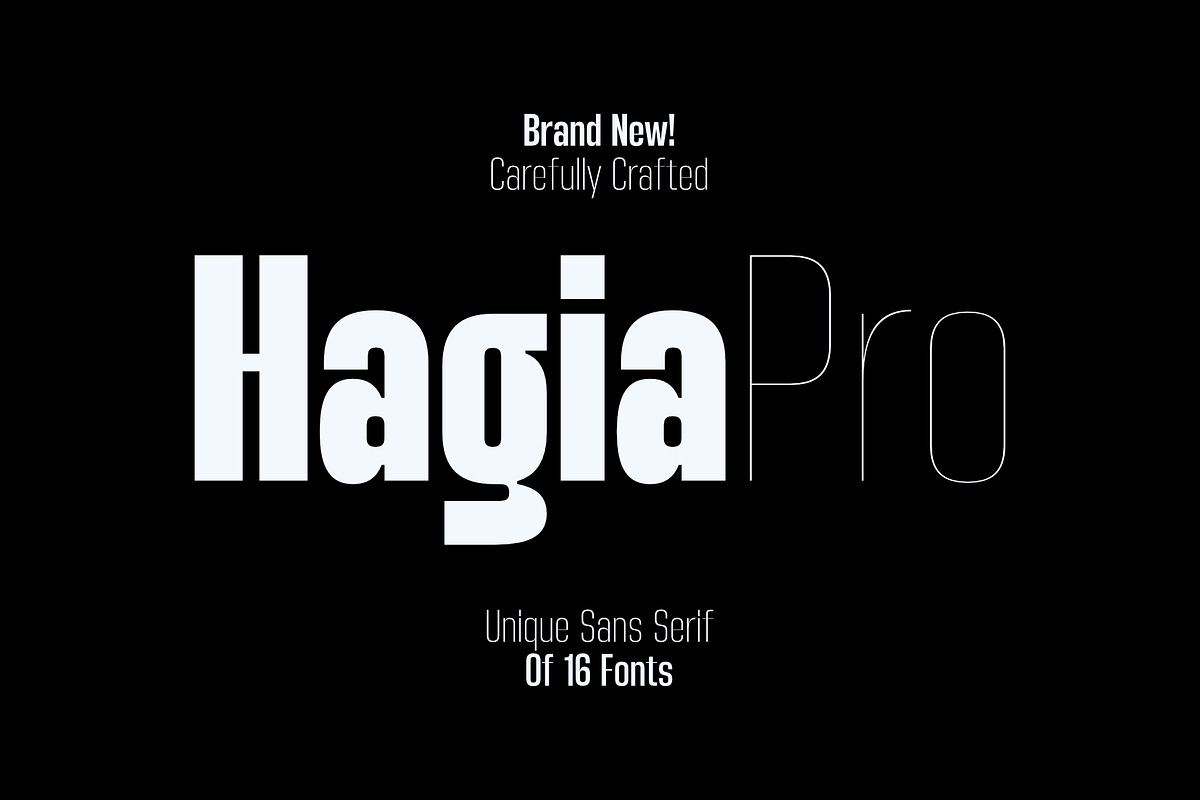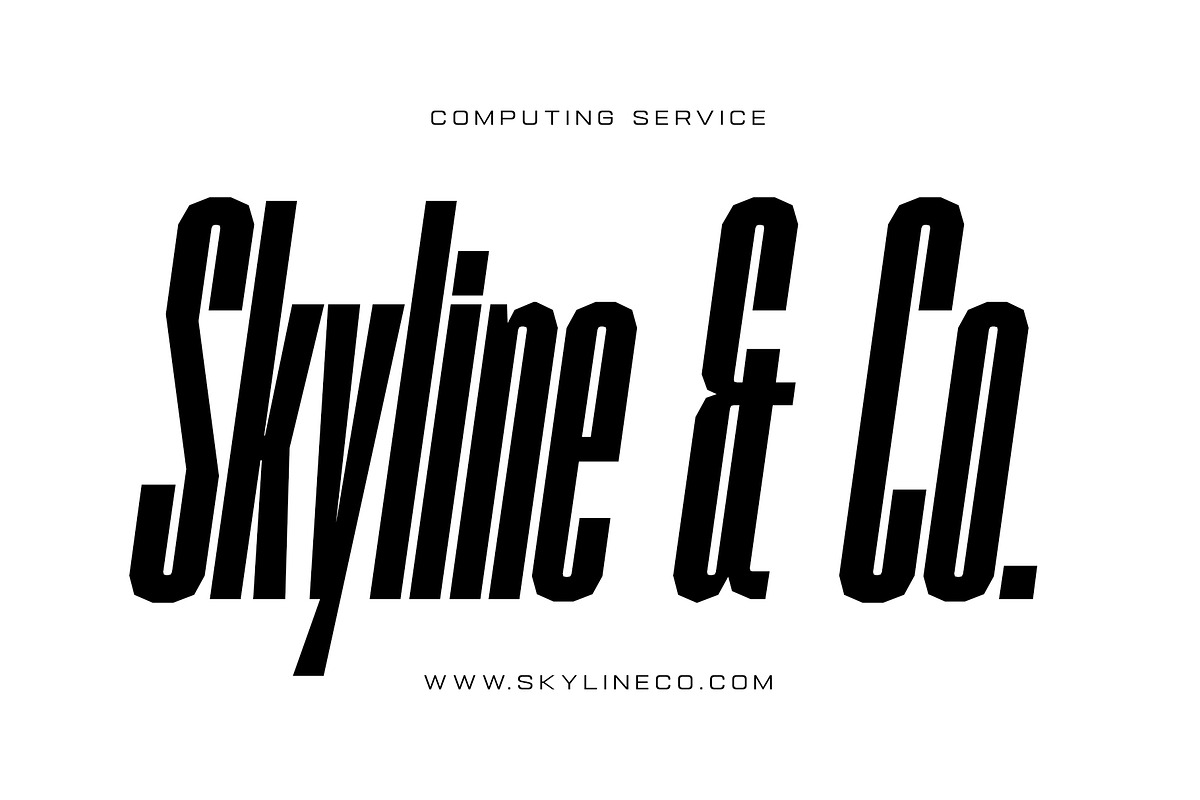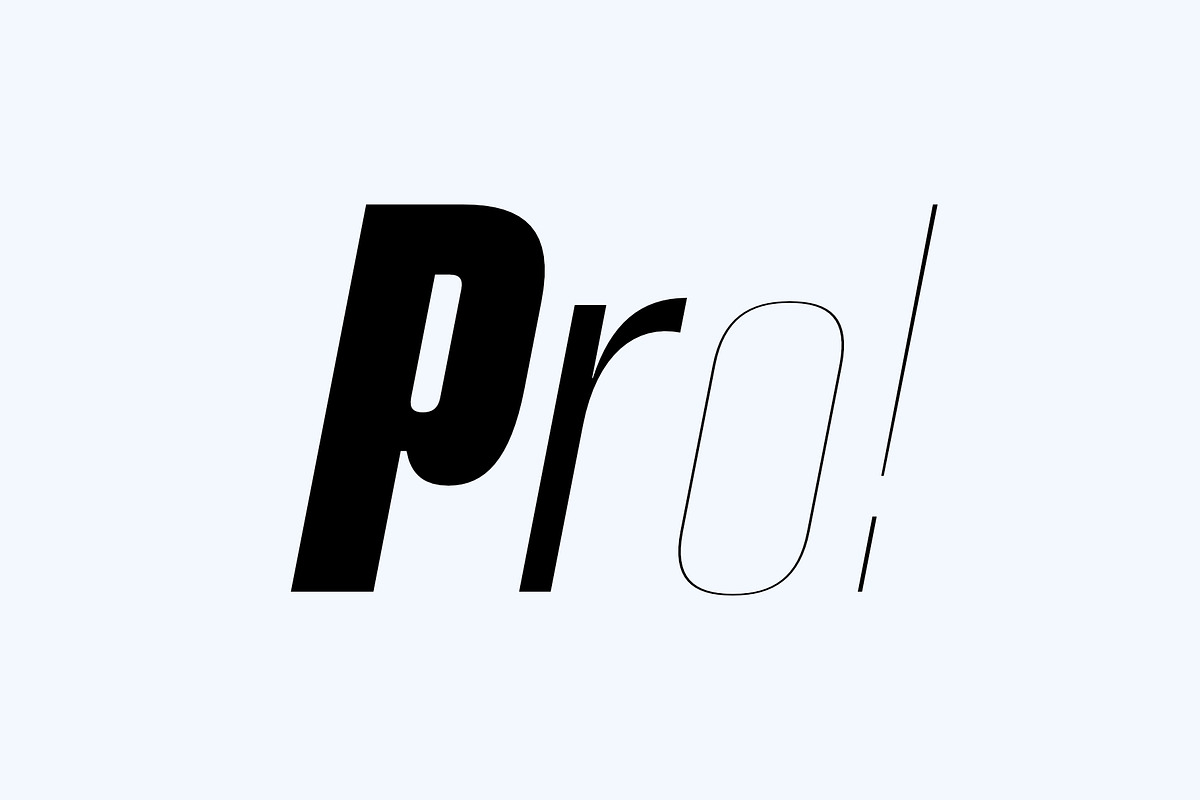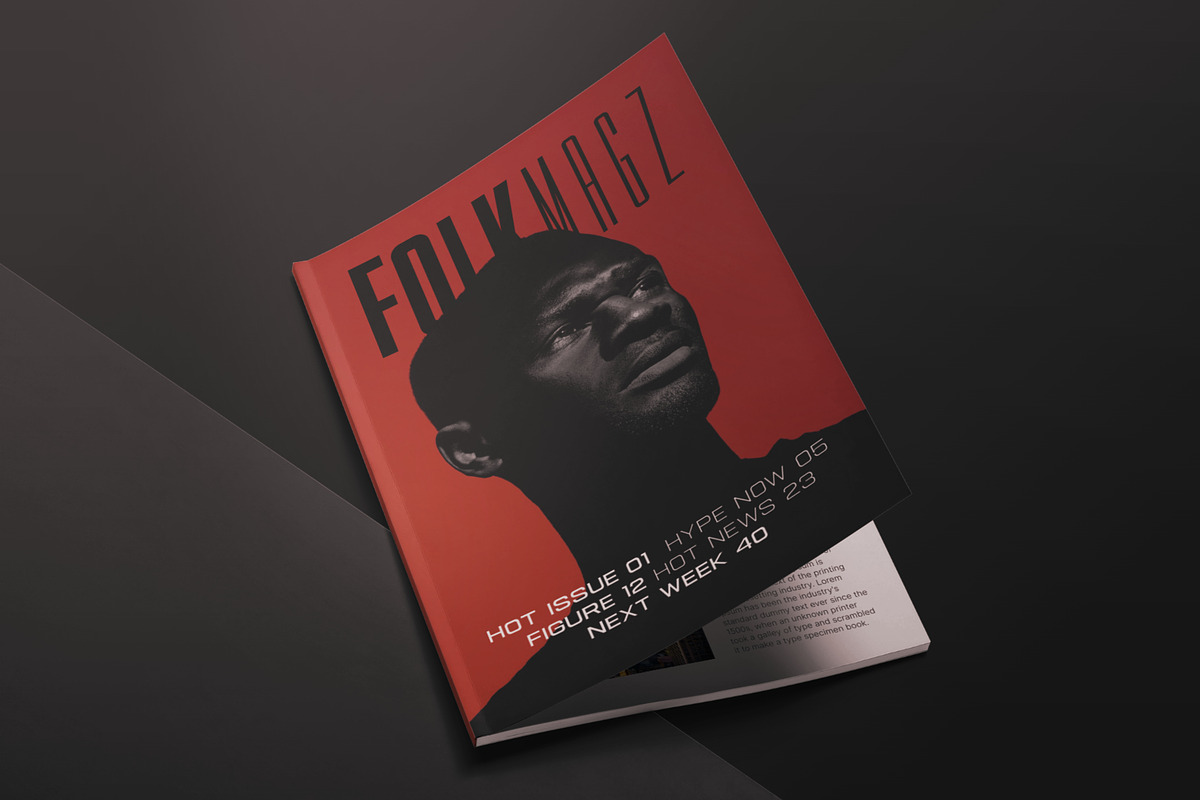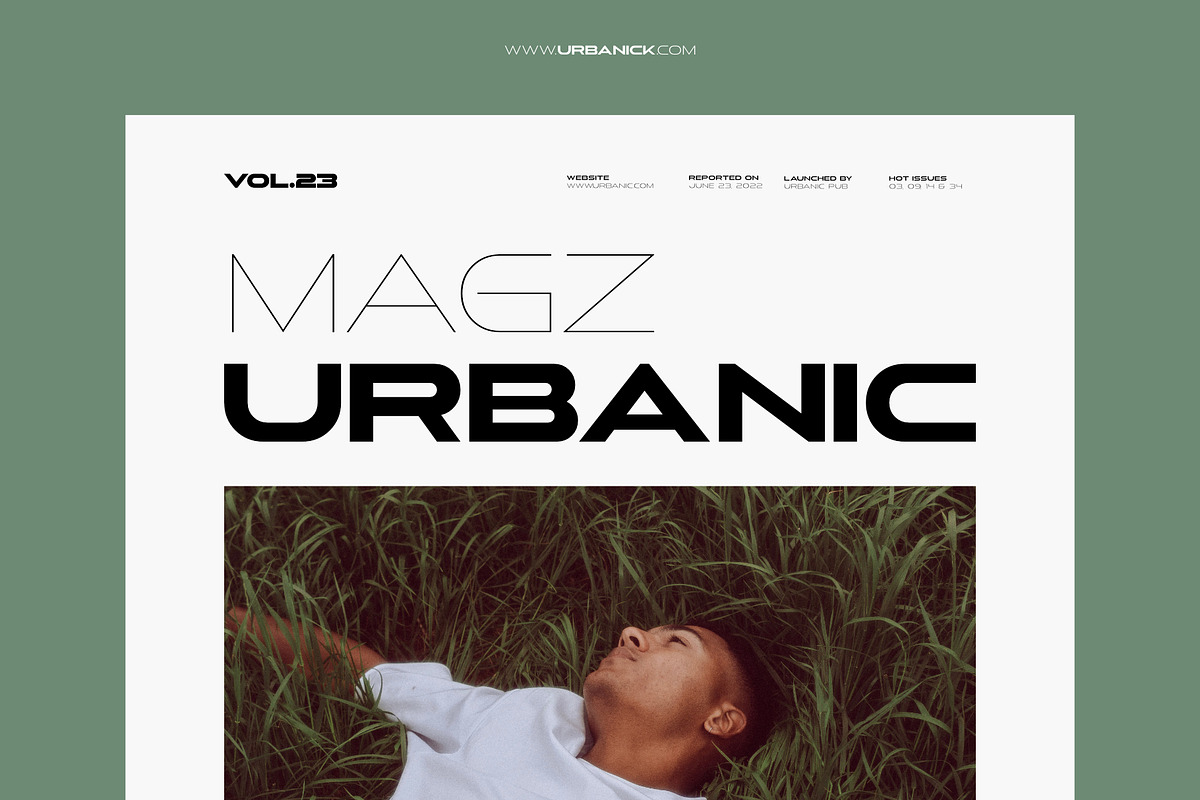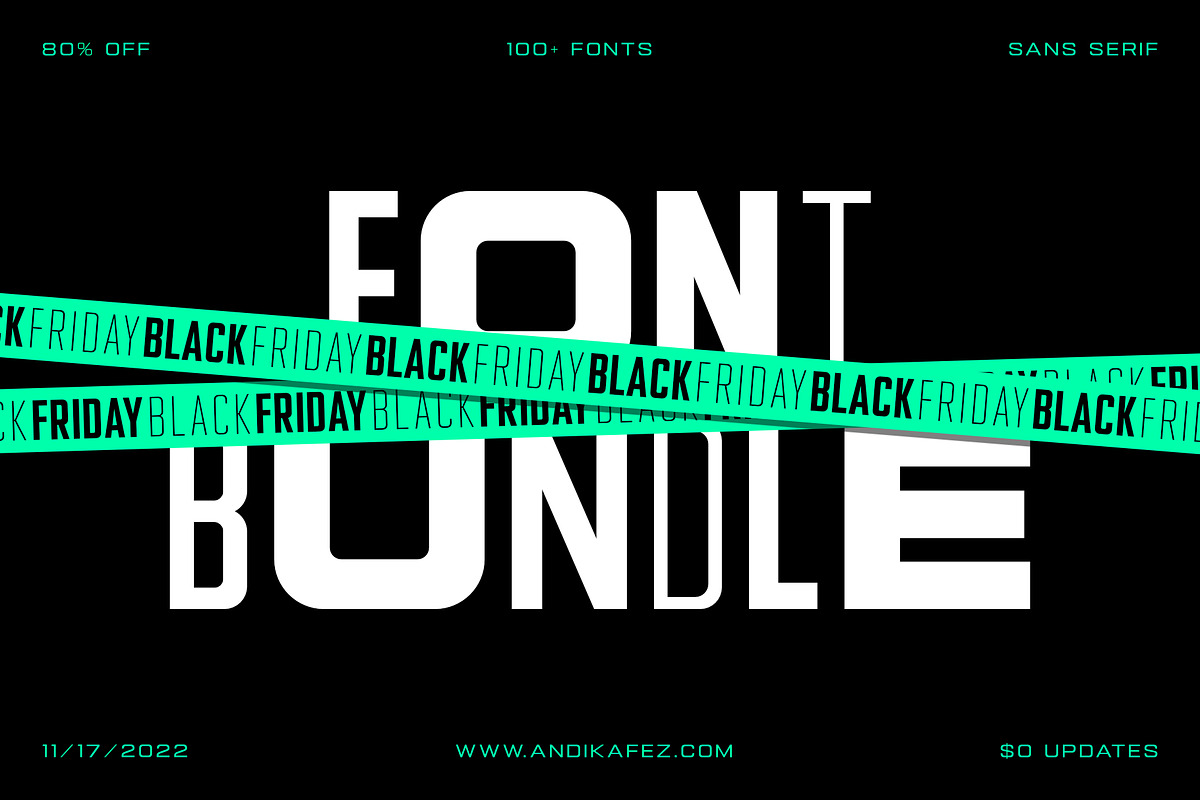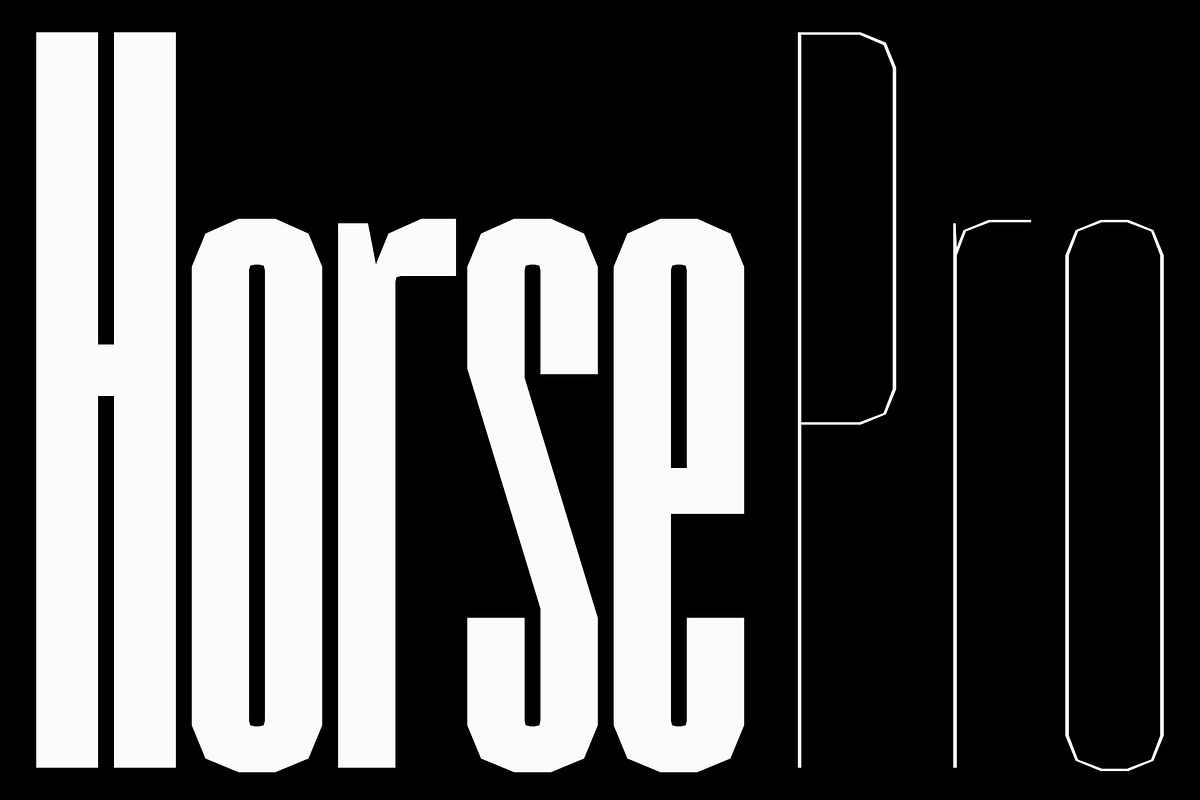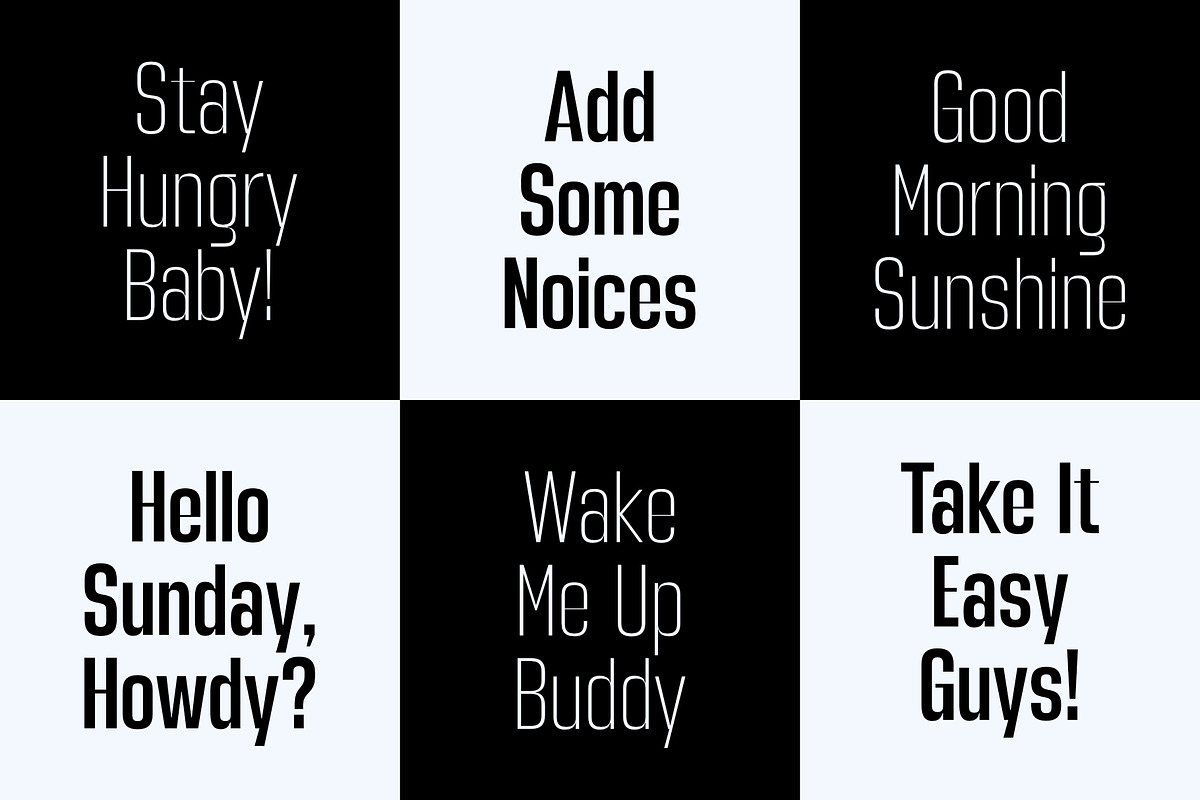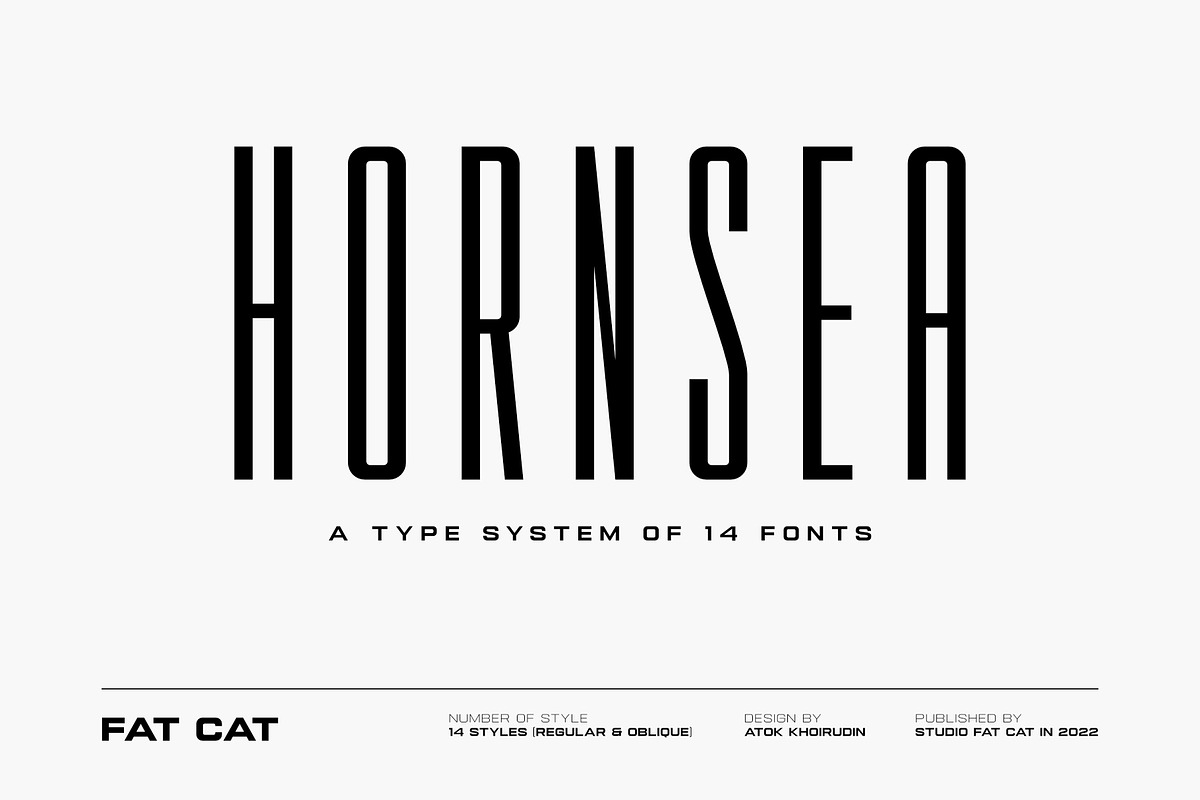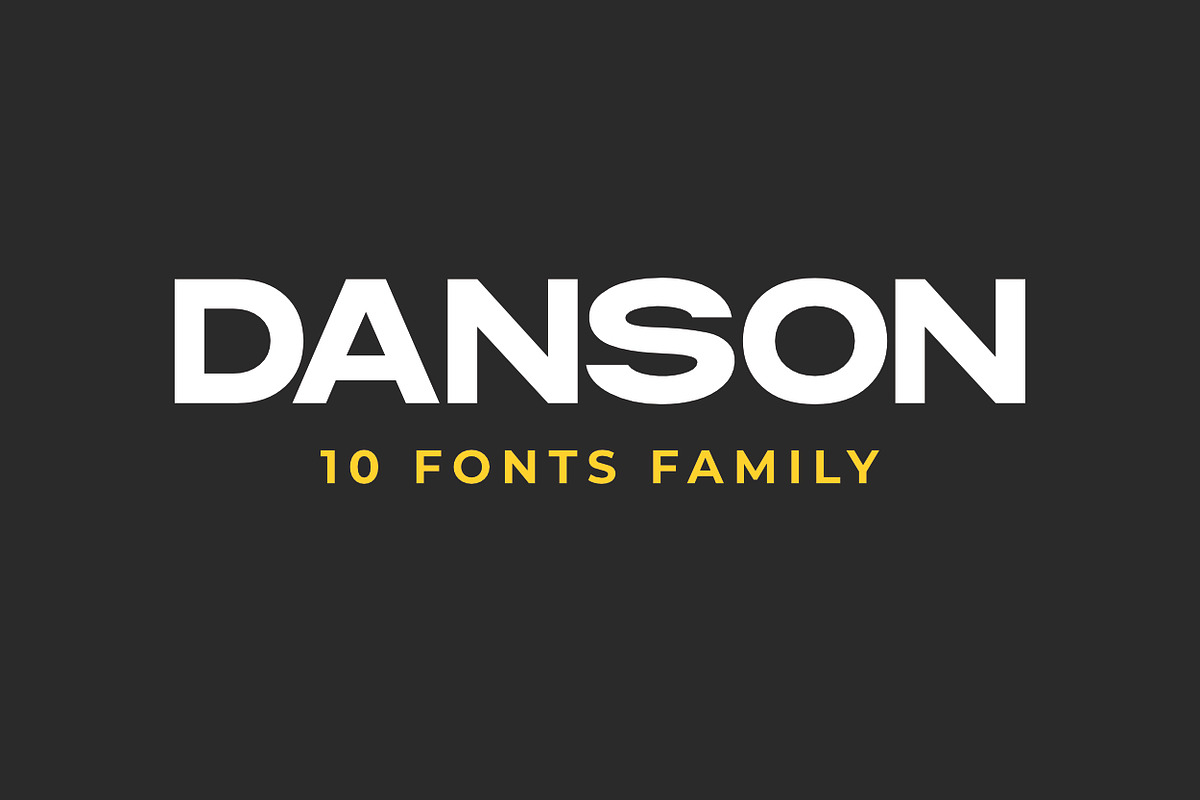
Black Friday Sans Serif Font Bundle
Introducing the new Black Friday Sans Serif Font Bundle.
The variety of weights of this font bundle from thin to black provides a variety of options that help you to find the best typography color for your creative project. Black Friday Sans Serif Font Bundle is specially designed for the need for big visuals and deep emotional impact.
The variety of options from condensed to expanded and from thin to black gives you the freedom to create something extraordinary that has never been thought of before. Black Friday Sans Serif Font Bundle lends its thick voice to all its users for something louder and bolder.
The impression that this bundle wants to give is a firm sans serif that is usually used for industrial needs but also relaxed.
Black Friday Sans Serif Font Bundle is a collection of modern industrial font that contains more than 100 fonts that will provide various colors that will color the user's project.
This Black Friday Sans Serif Font Bundle contained:
- Horse Pro: 14 Fonts https://creativemarket.com/andikafez/10285060-Horse-Pro-Unique-Sans-Serif-Font
- Hagia Pro: 16 Fonts https://creativemarket.com/andikafez/7801448-Hagia-Pro-Unique-Sans-Serif
- Gemsbuck Pro: 48 Fonts https://creativemarket.com/andikafez/7481750-Gemsbuck-Modern-Industrial-Font
- Next Sphere: 9 Fonts https://creativemarket.com/andikafez/7328832-EXTENDED-FONT-FAMILY-NEXT-SPHERE
- Hornsea FC: 20 Fonts https://creativemarket.com/andikafez/7335968-Condensed-Font-Family-Hornsea-FC
- Danson: 10 Fonts https://creativemarket.com/andikafez/7067423-DANSON-10-FONTS-FAMILY